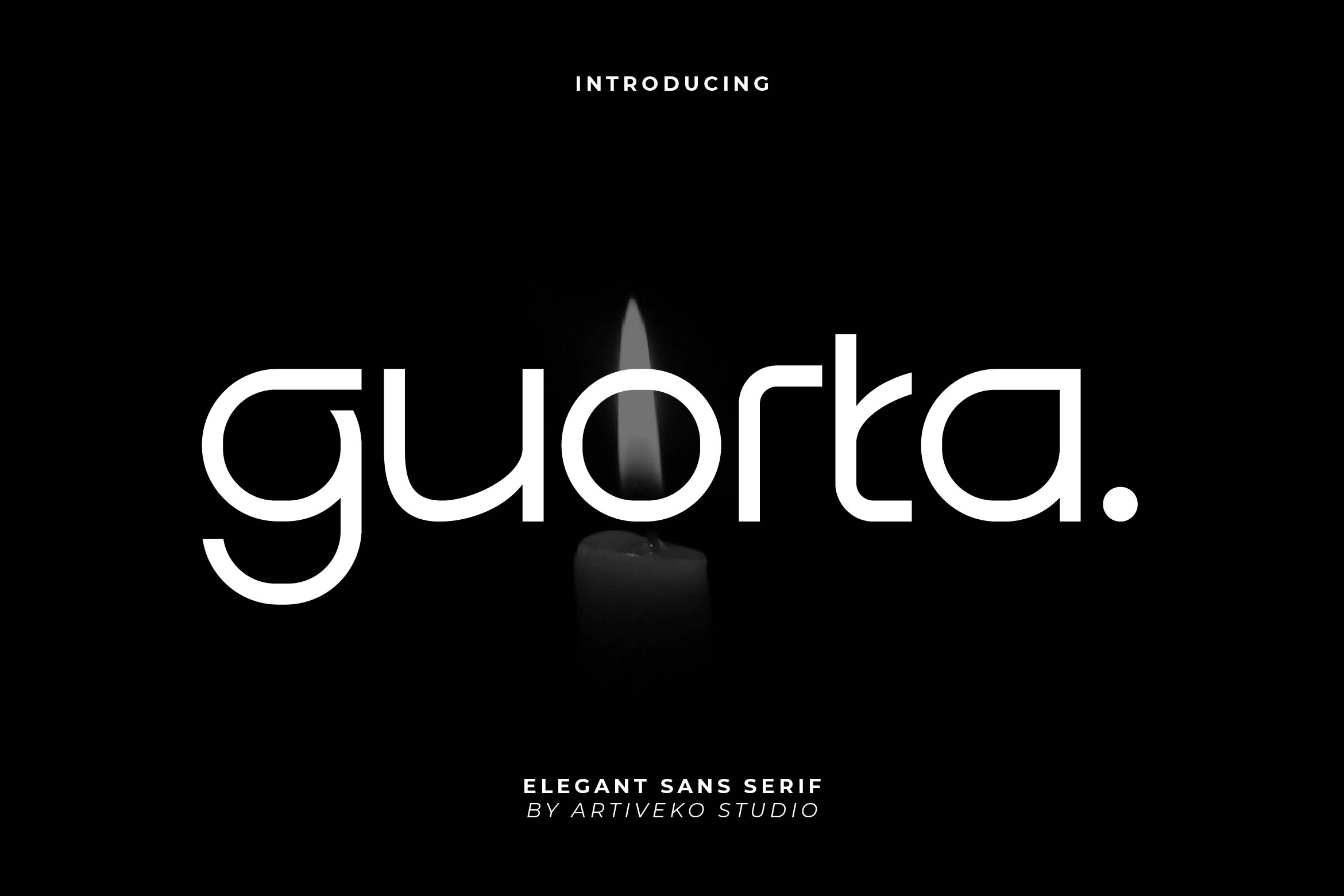
- Guorta Simple Sans Serif Font
Guorta is a clean and refined sans serif font that embodies simplicity, balance, and contemporary elegance. With its smooth curves, precise geometry, and minimalist letterforms, Guorta is perfect for branding, editorial layouts, website headers, product packaging, and social media graphics that require a modern and timeless aesthetic.
Its simple yet distinctive structure ensures excellent readability across both print and digital platforms. Guorta adapts beautifully to various design contexts — from luxury branding and lifestyle visuals to corporate identities and minimalist creative projects.
The font includes uppercase and lowercase letters, numerals, punctuation, multilingual support, and stylistic alternates, giving designers flexibility to craft clean and polished typography.
Elevate your design projects with Guorta — a minimalist sans serif font that blends modern clarity with understated sophistication.